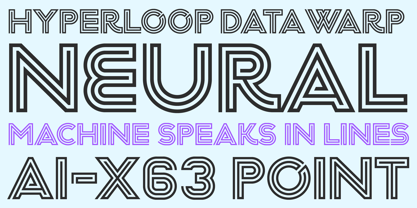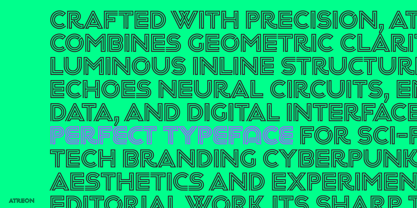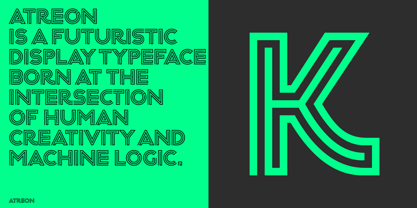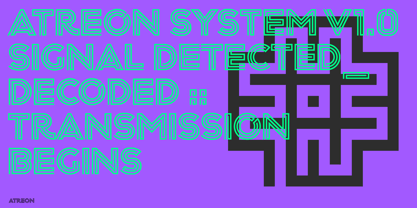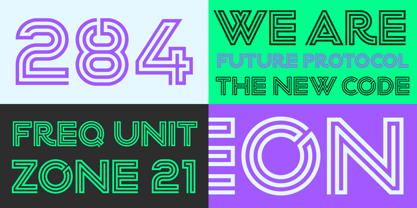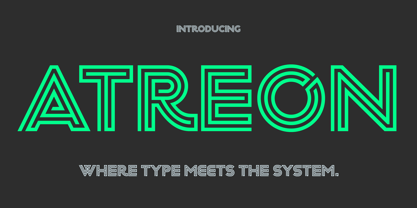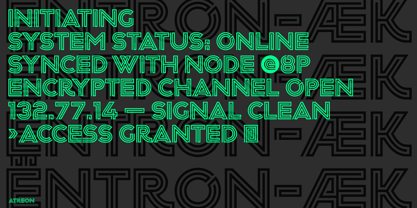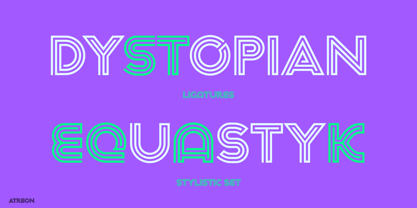
Atreon
by JVB
The Atreon Font Family was designed by Joel Vilas Boas and published by JVB. Atreon contains 1 styles.
ATREON
Where type meets the system.
Atreon is a futuristic display typeface born at the intersection of human creativity and machine logic. Crafted with precision, Atreon combines geometric clarity with a luminous inline structure that echoes neural circuits, encrypted data, and digital interfaces. It’s the perfect typeface for sci-fi titles, tech branding, cyberpunk aesthetics and experimental editorial work. Its sharp, structured rhythm feels equally at home on dystopian screens or next-gen packaging, where every character pulses with synthetic energy.